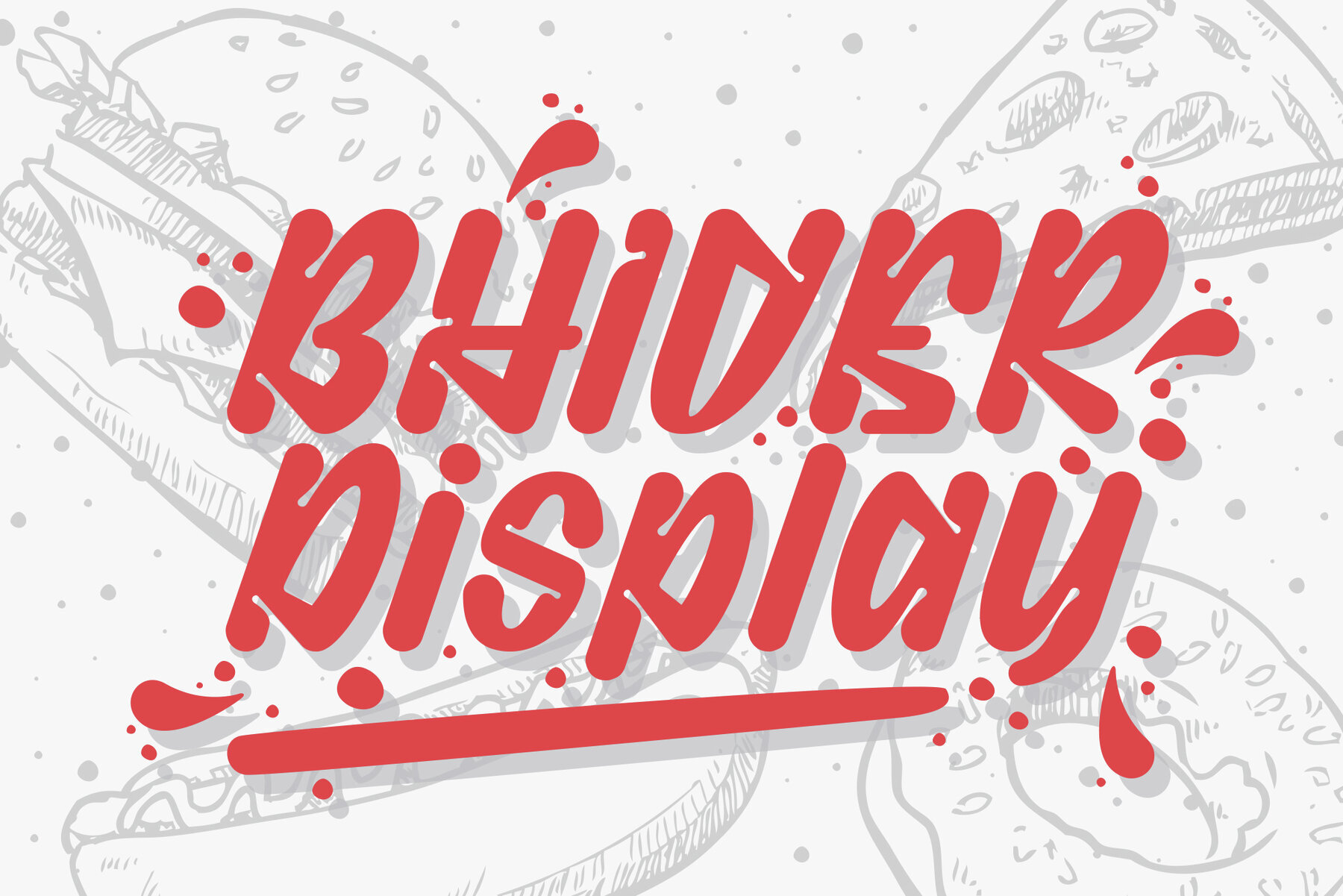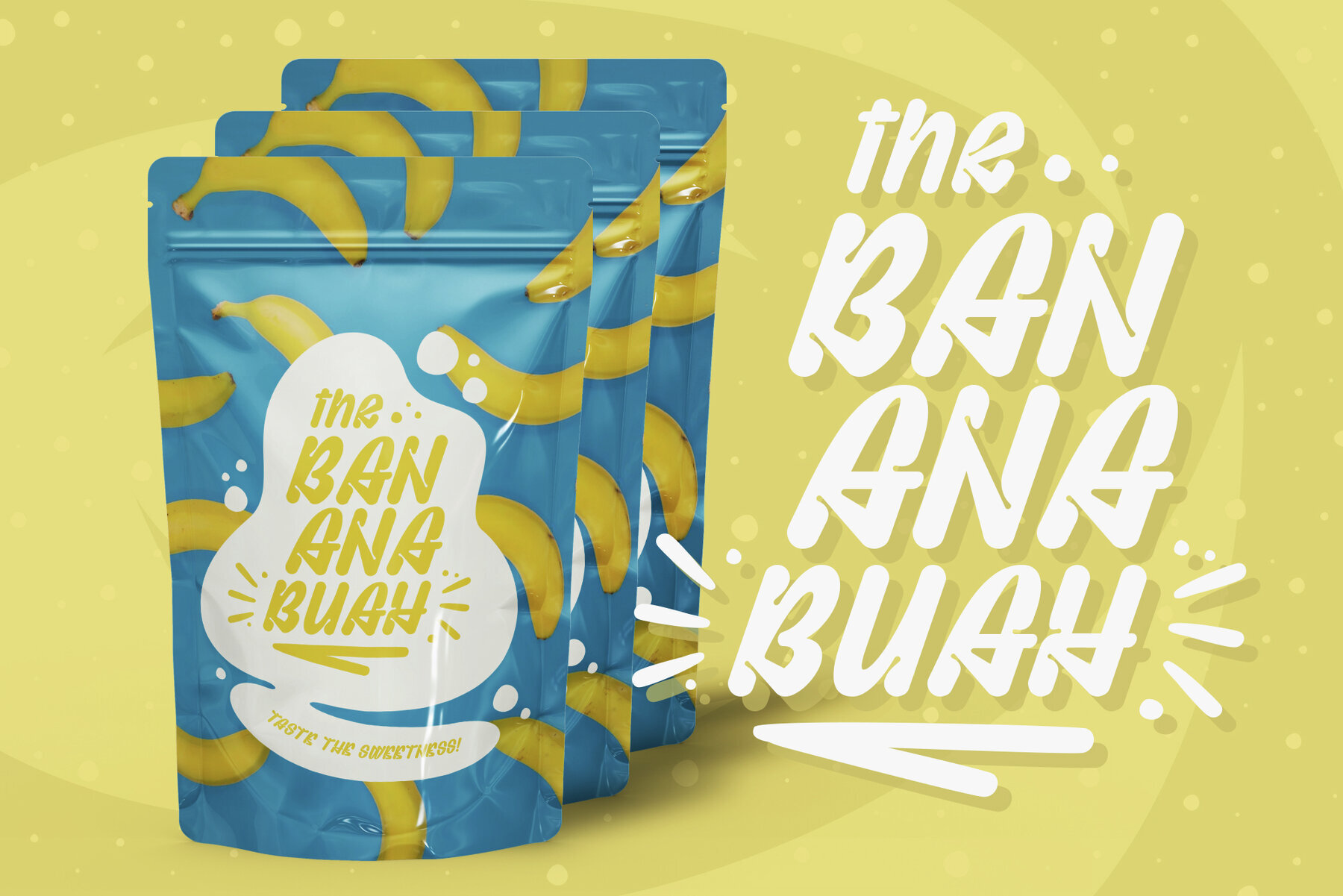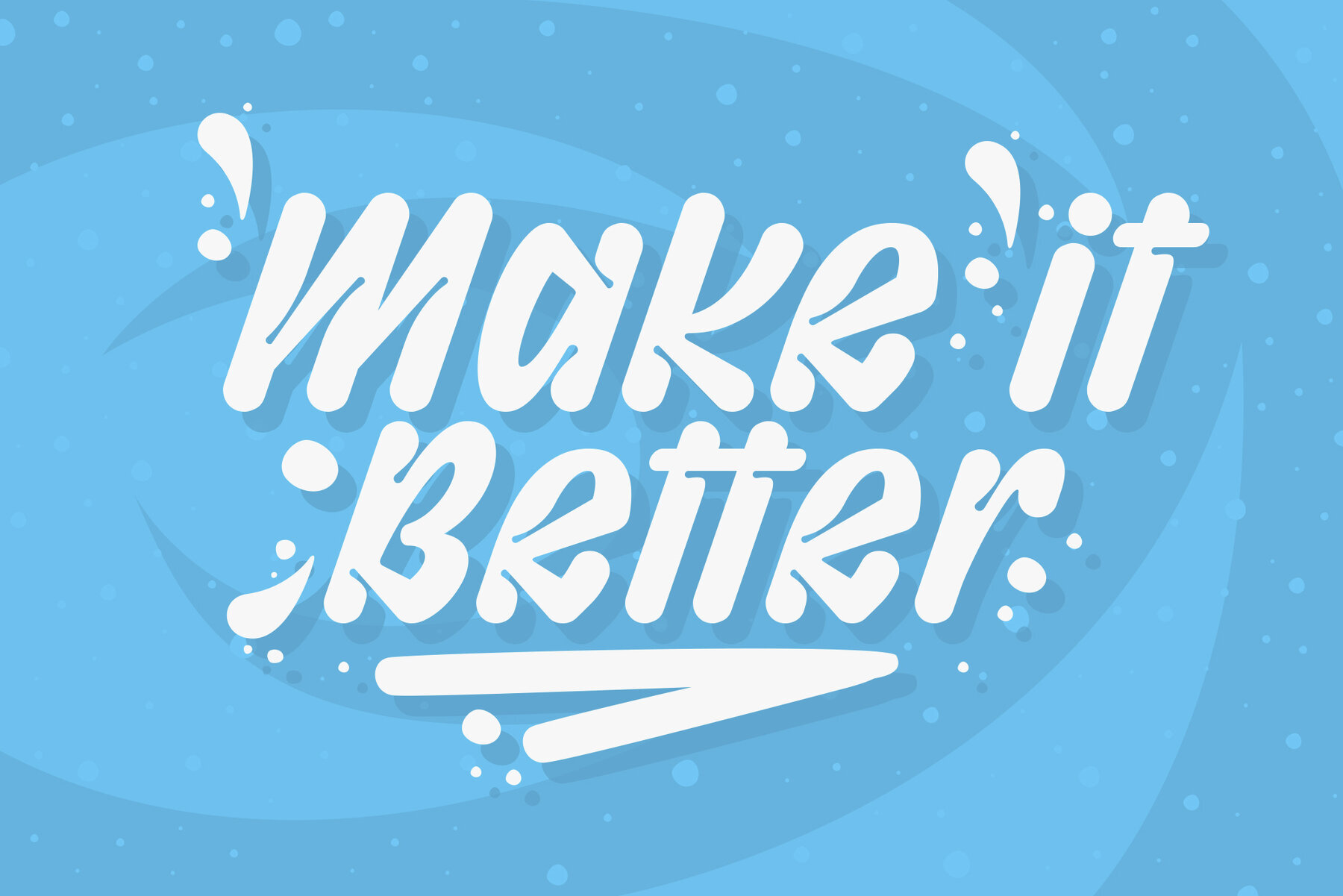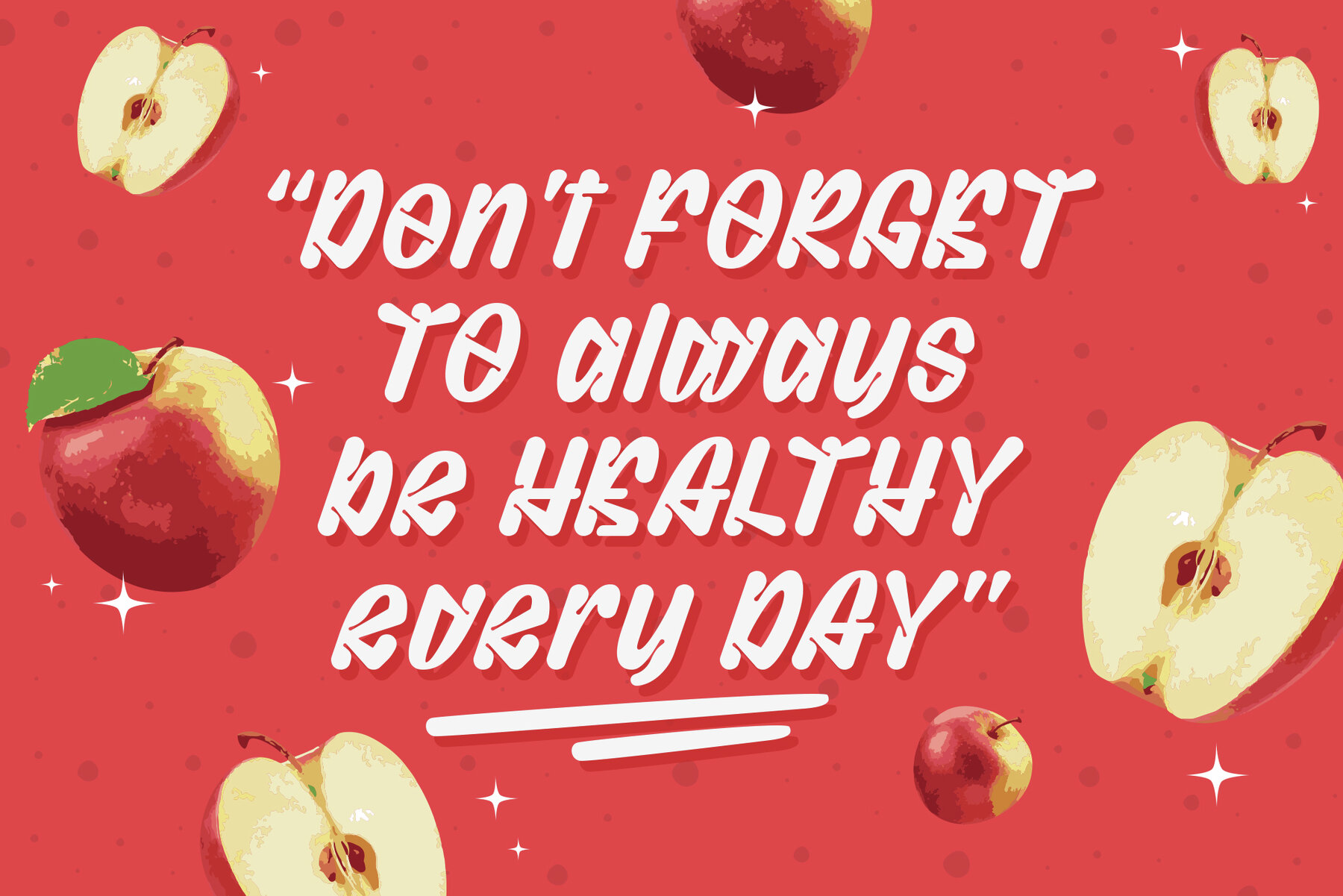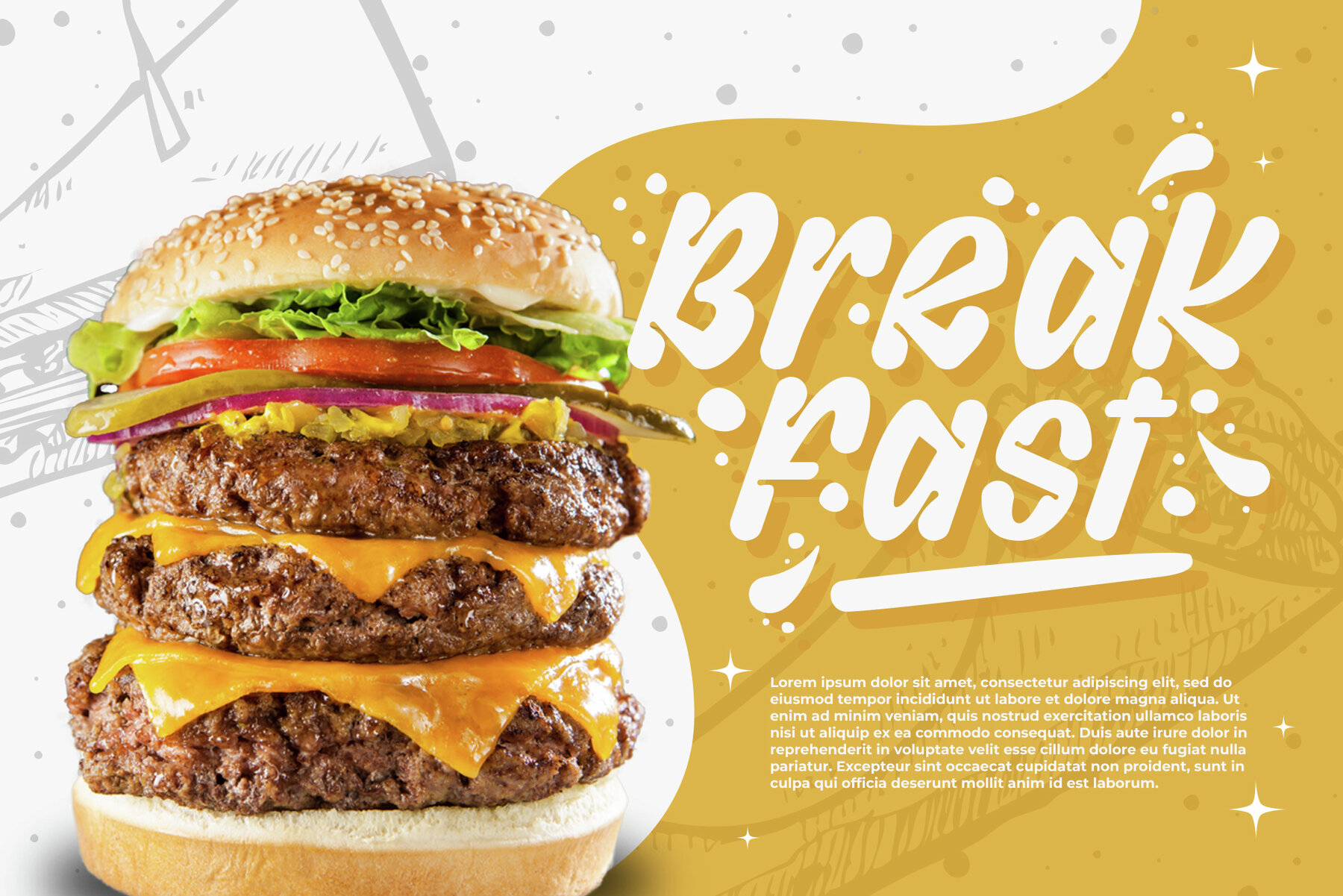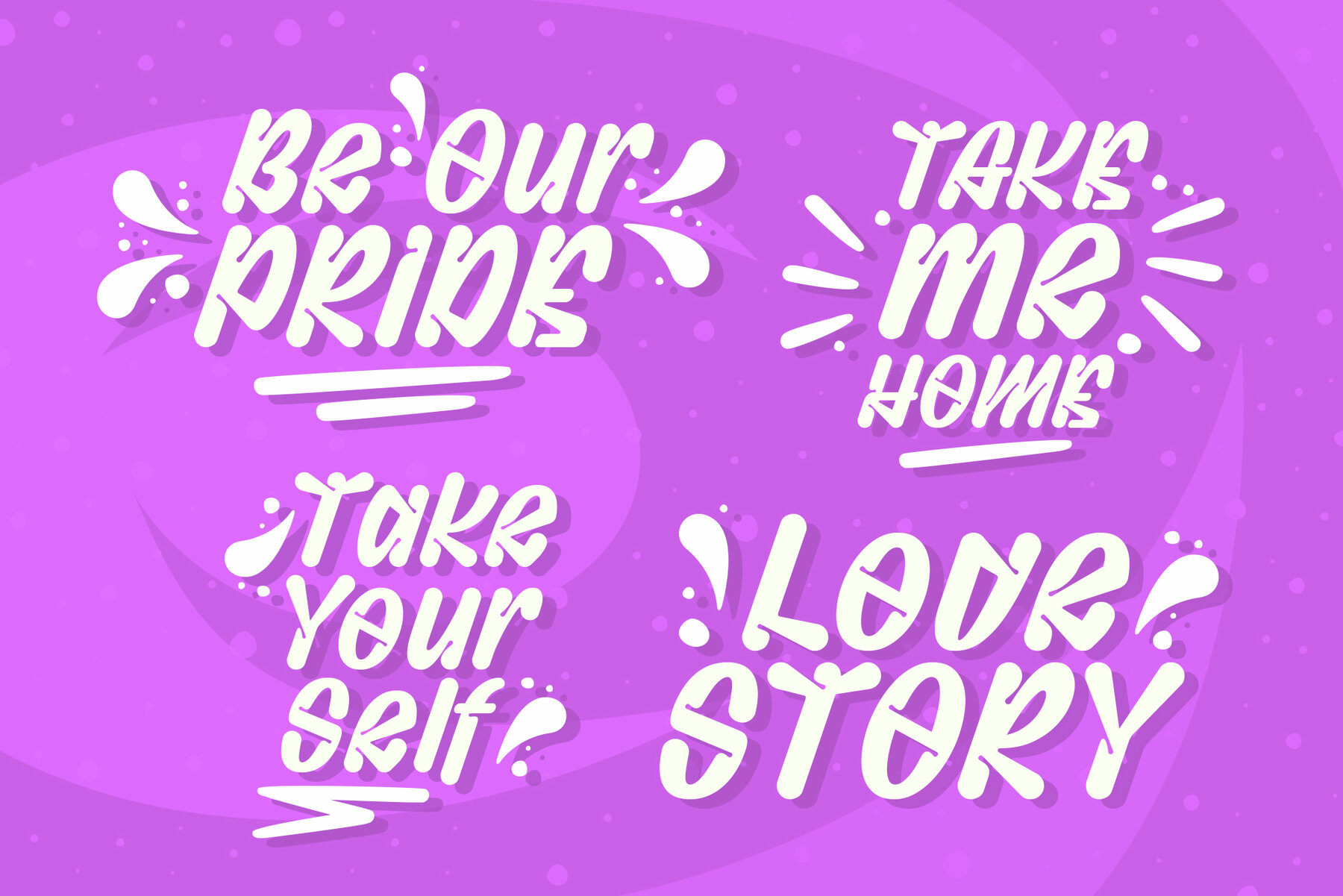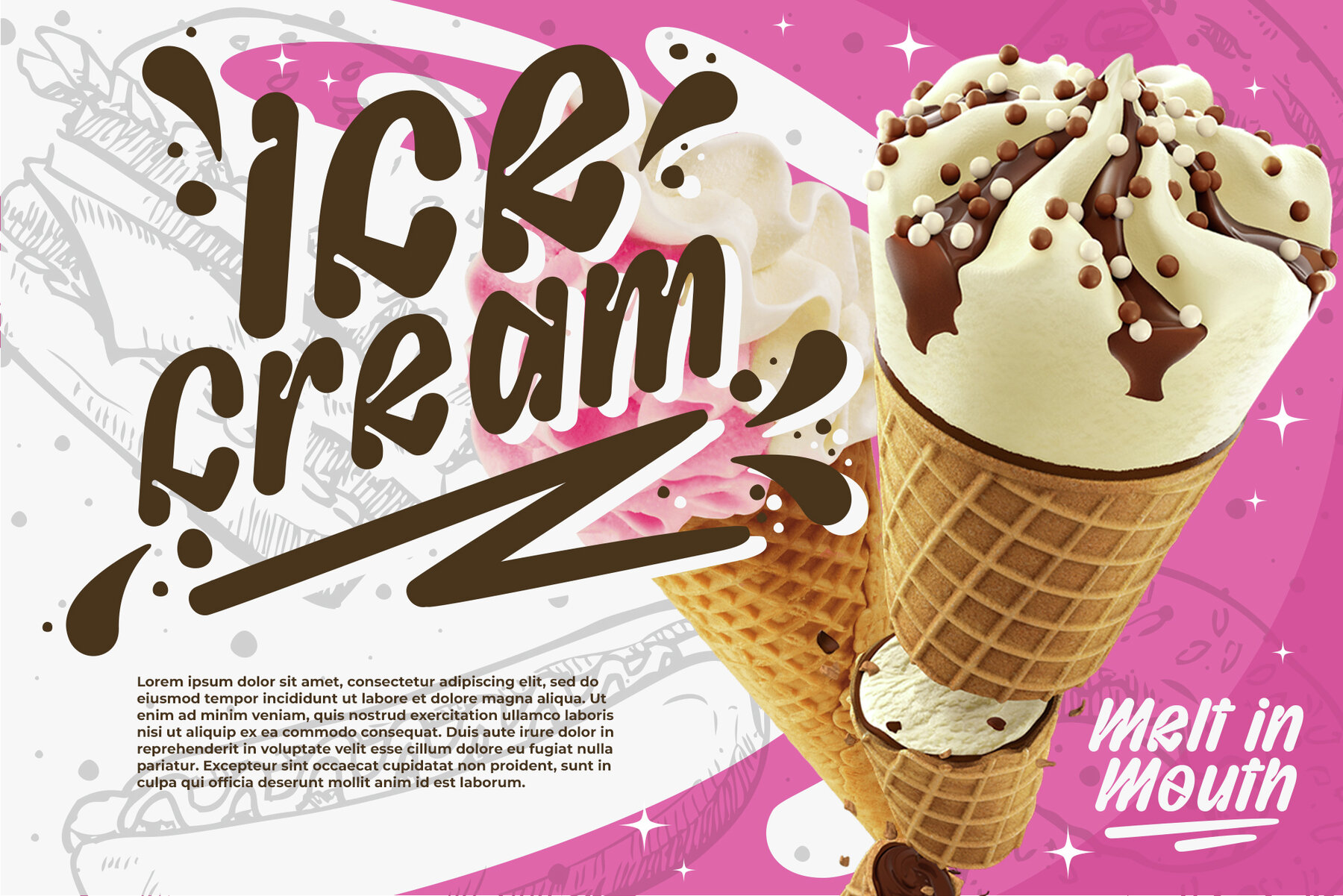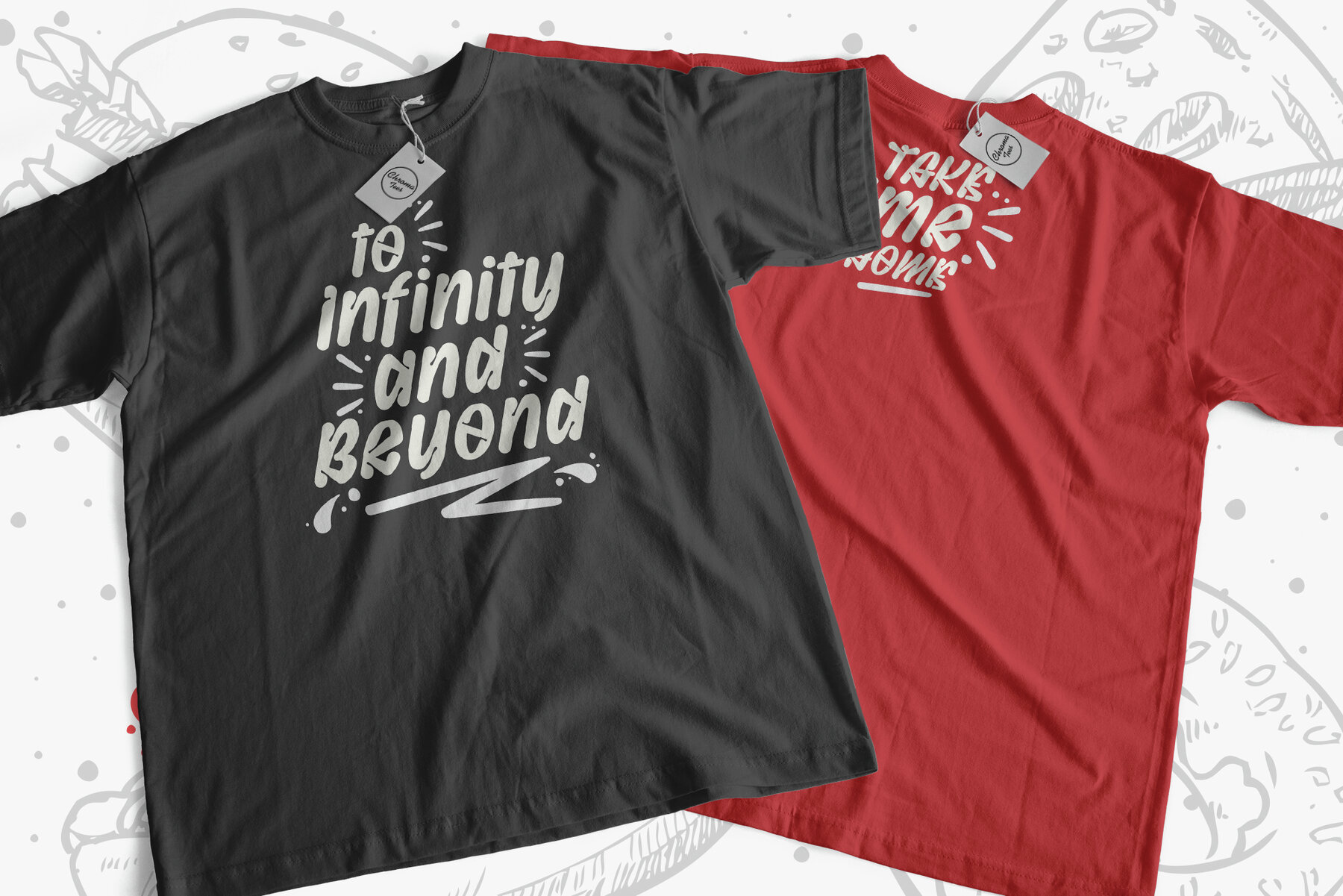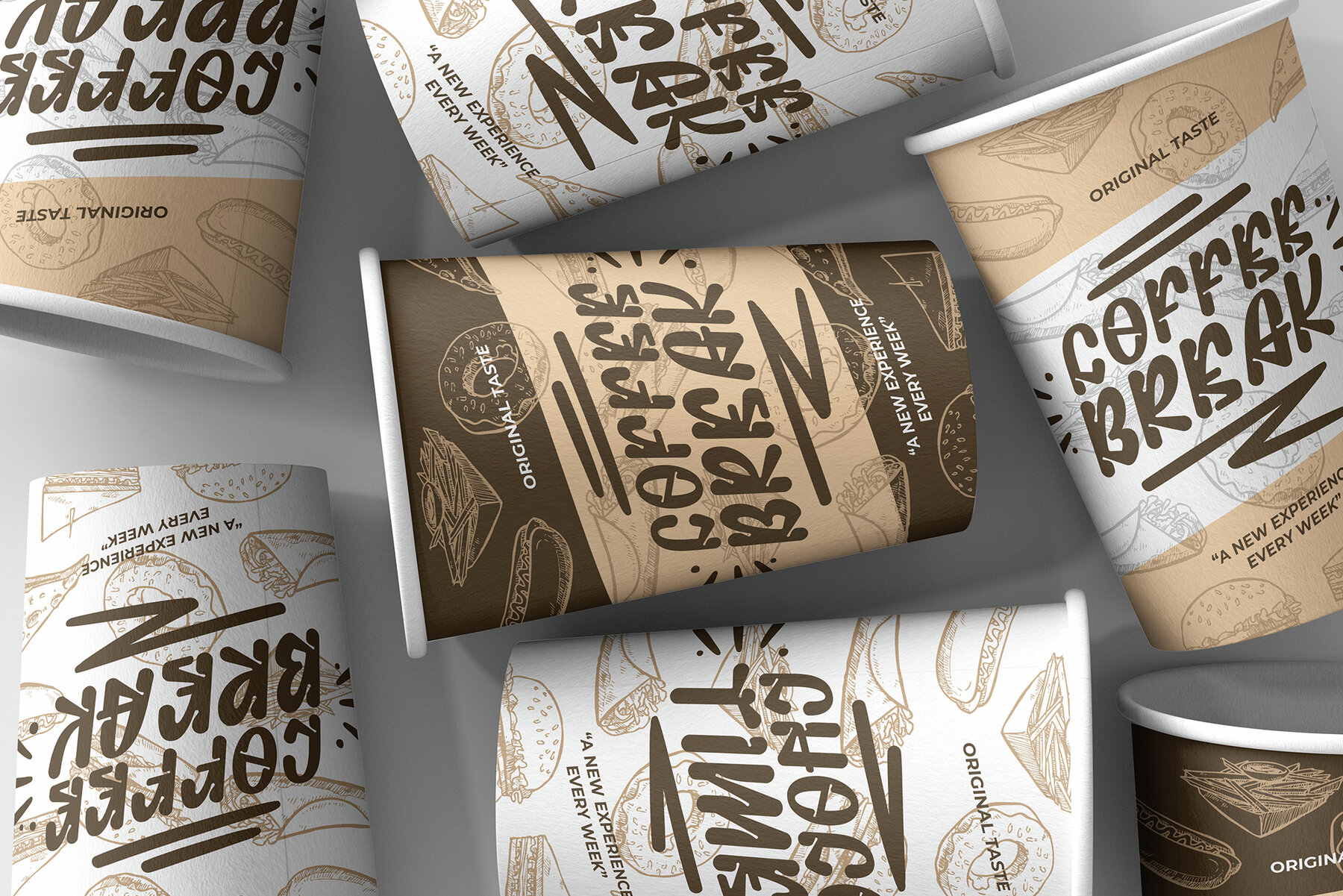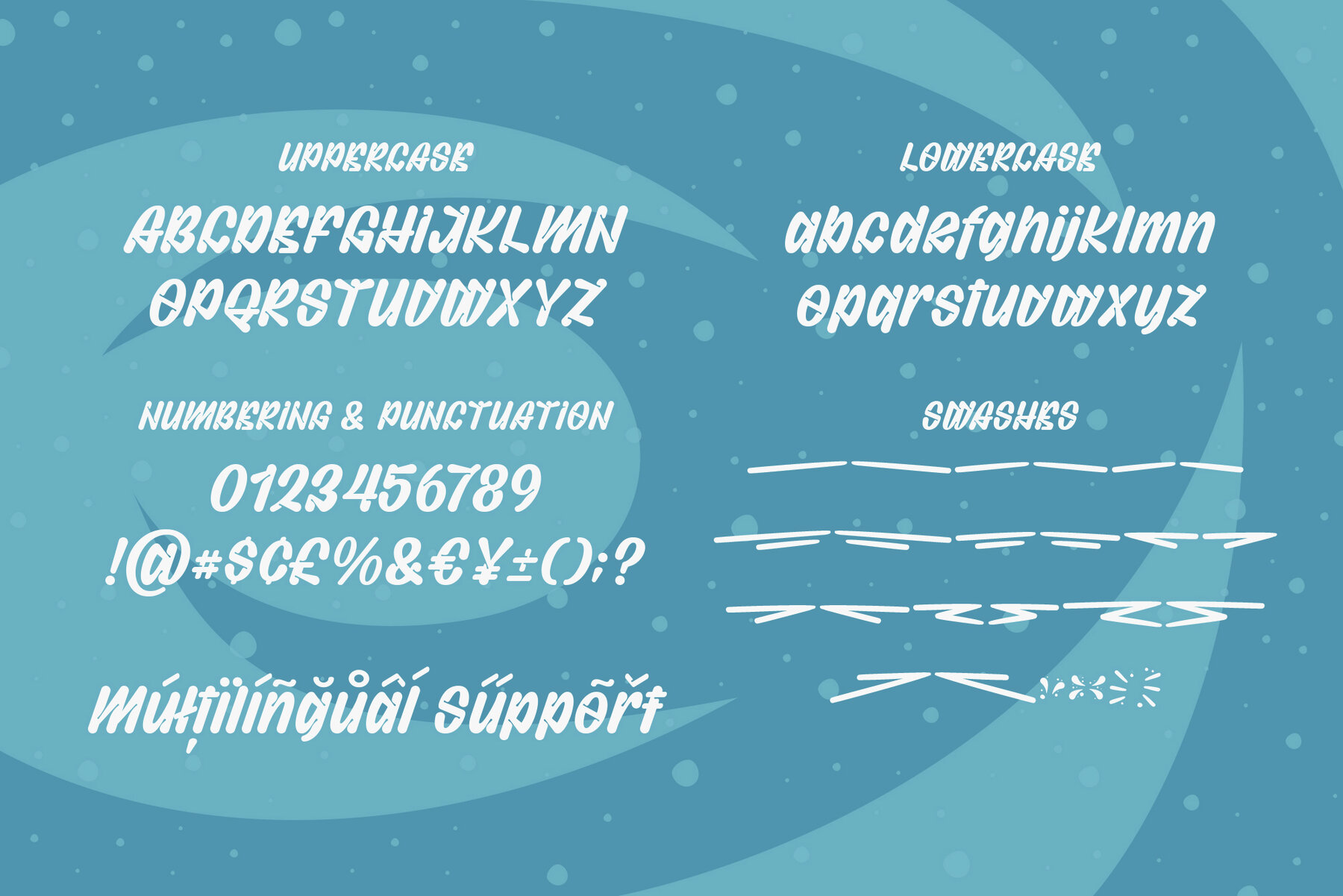
Bhiver Font
Bhiver Regular
Bhiver Swash
Bhiver is a san serif font with an angled and curved style in every corner, we made it with a display style that is perfect for making product packaging such as: Coffee Packaging, Ice Cream Packaging, Beauty Packaging, and for Brochures, Templates, Social Media Post, and etc.
Bhiver is also equipped with Swash which you can access according to what we have provided, form sentences as you like by combining Swashes to make it look more attractive like the example that I have previewed.